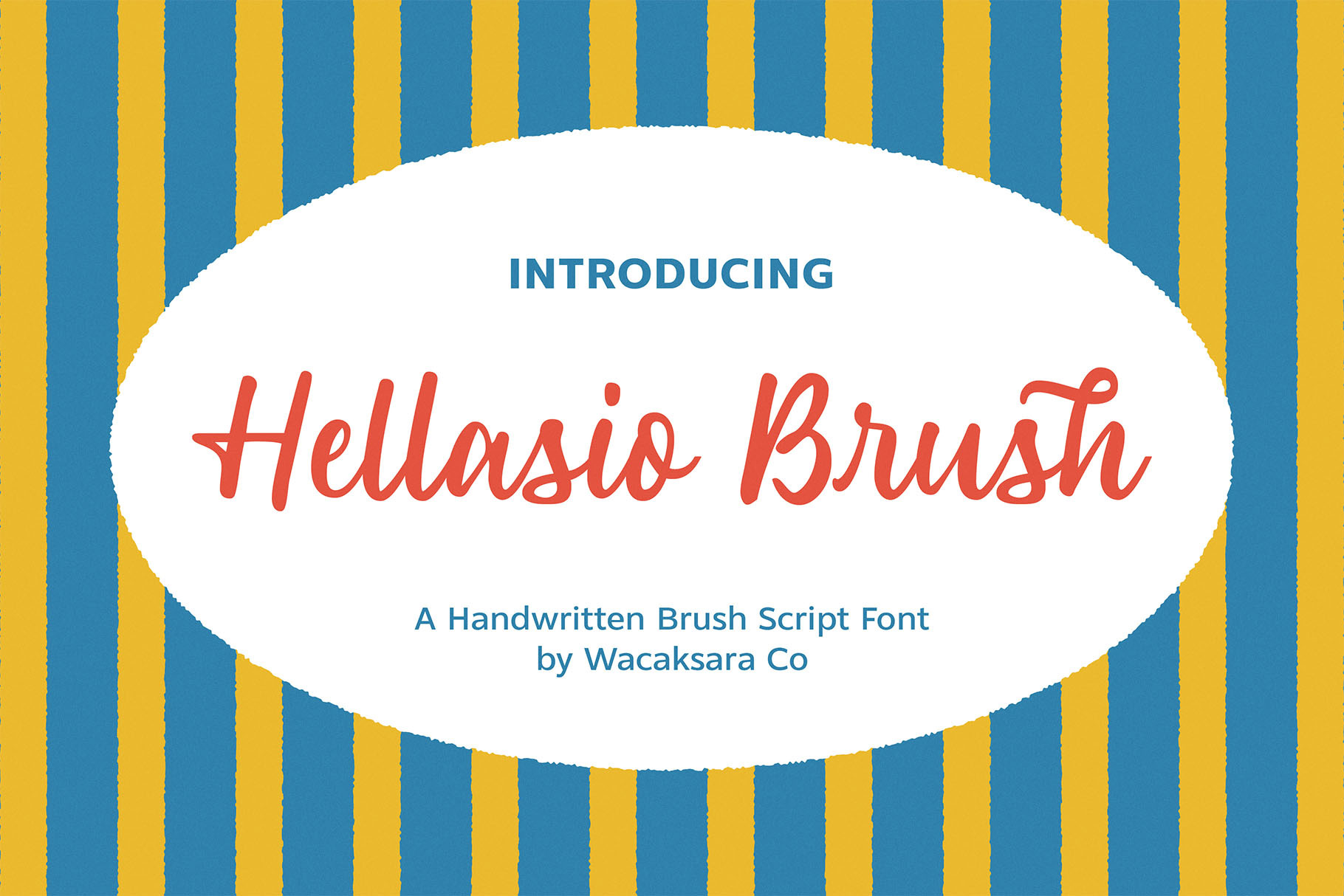
Hellasio - Brush Script Font
Hellasio Brush Script Font is a clean, smooth brush script font inspired by modern handwritten brush calligraphy. Its natural flow and gentle curves create a warm, personal touch that feels effortless in any design.
Perfect for food posters, branding, apparel, product labels, menu, letterhead, modern logos, packaging, and social media design. This font delivers a stylish handwritten look while remaining clear and highly readable. Every stroke carries a friendly, expressive vibe that instantly enriches your visual message.